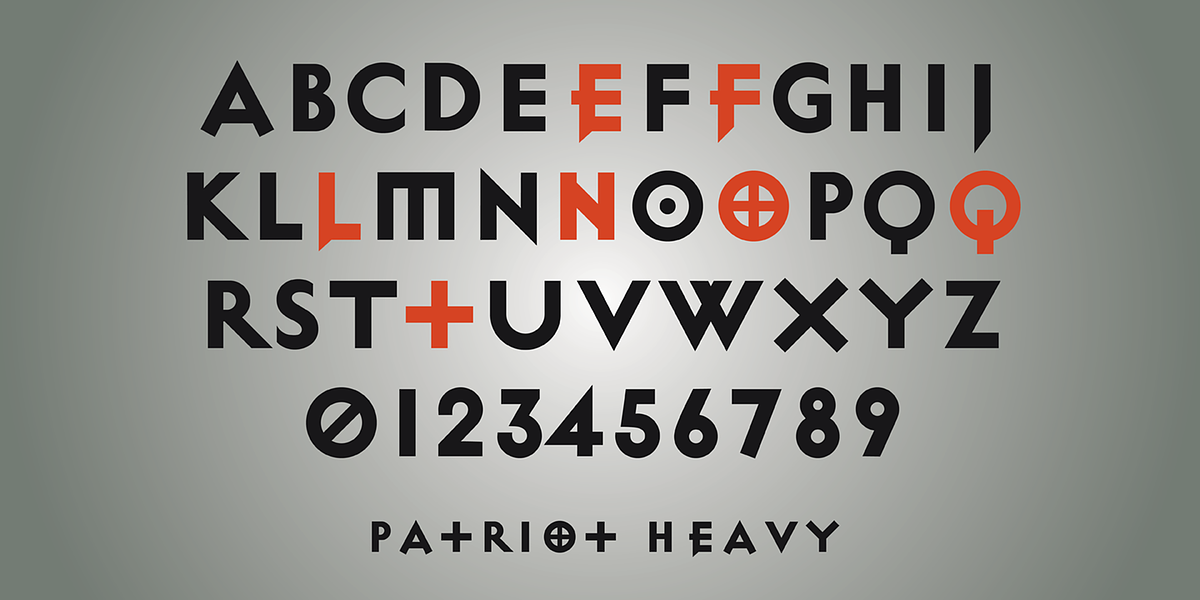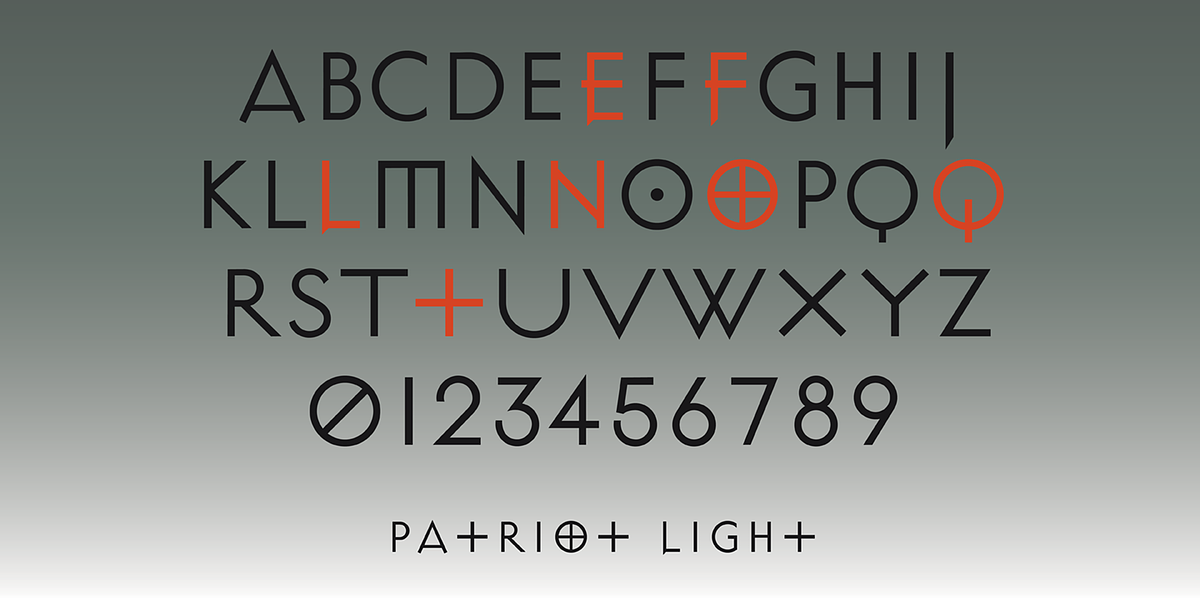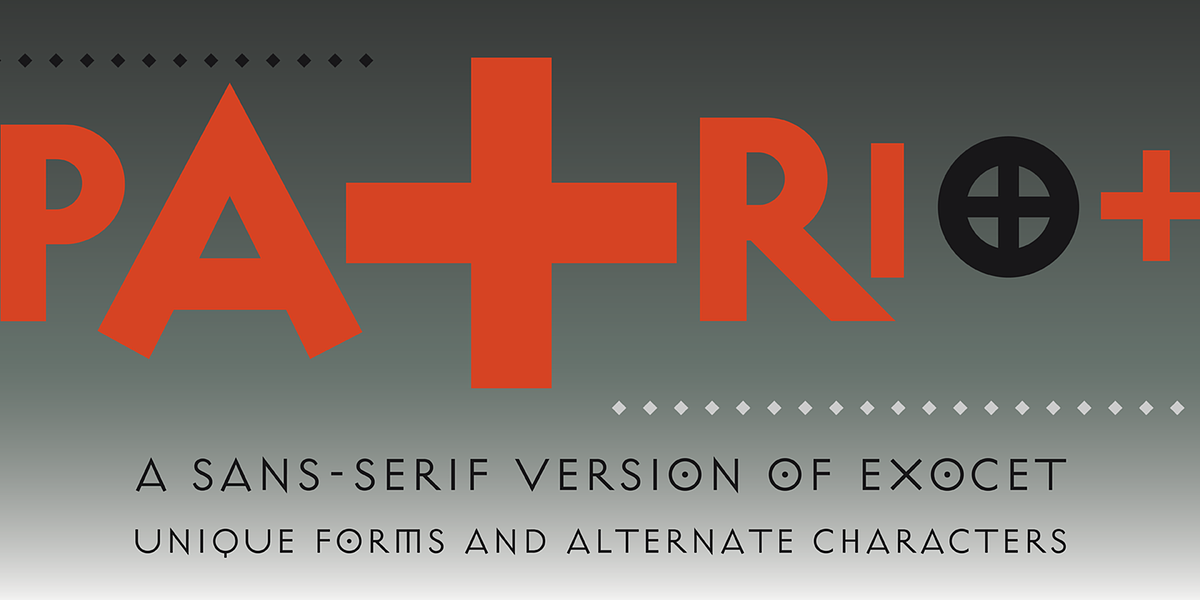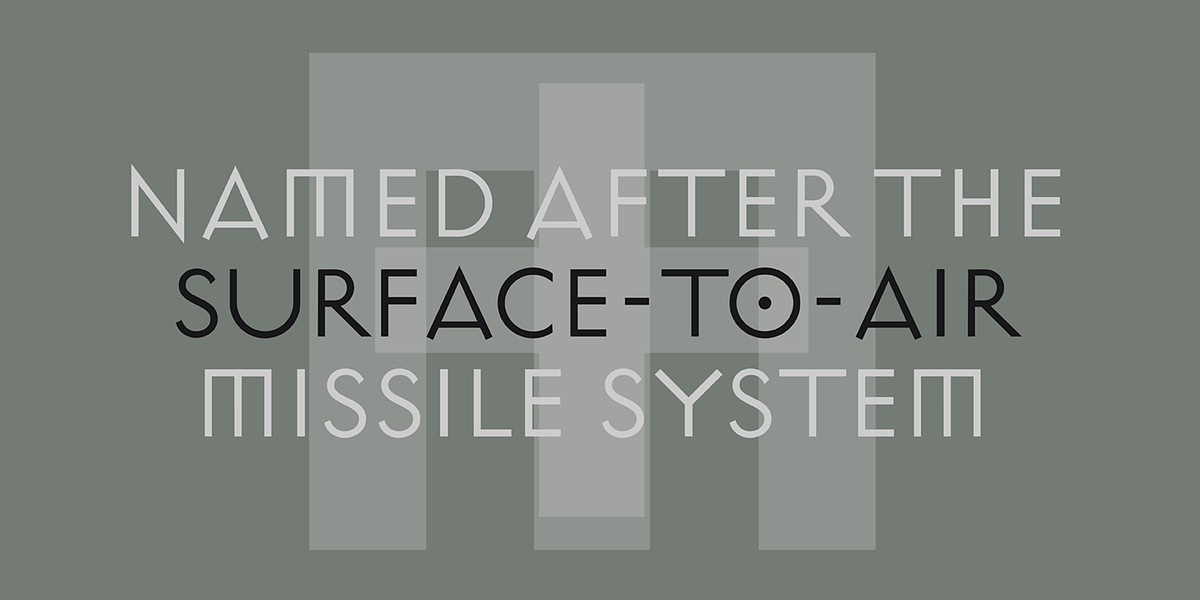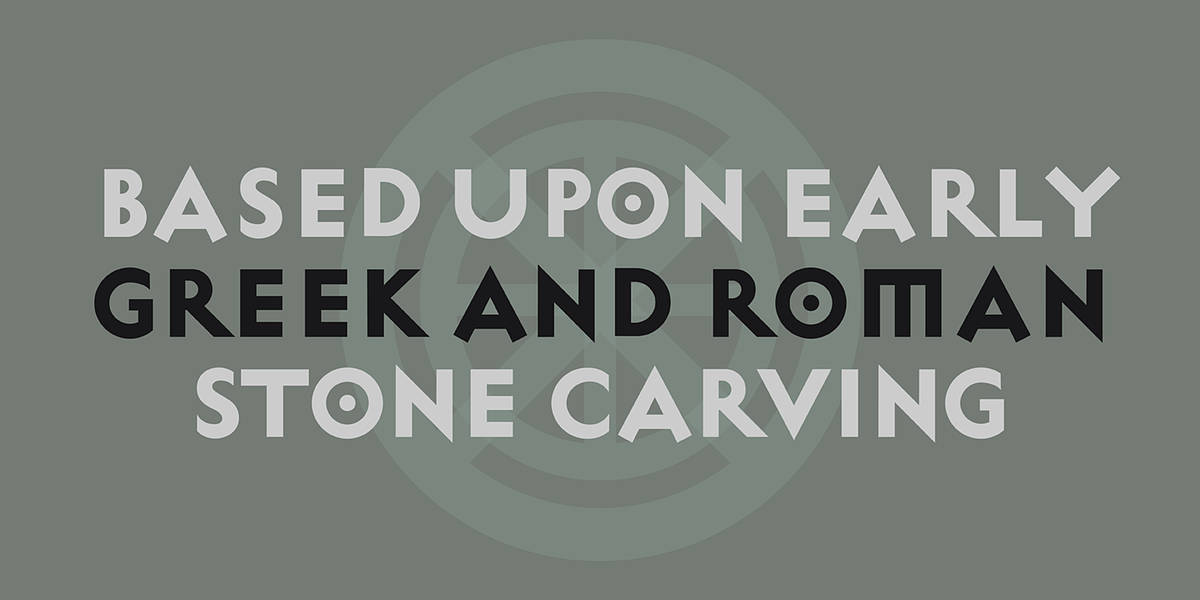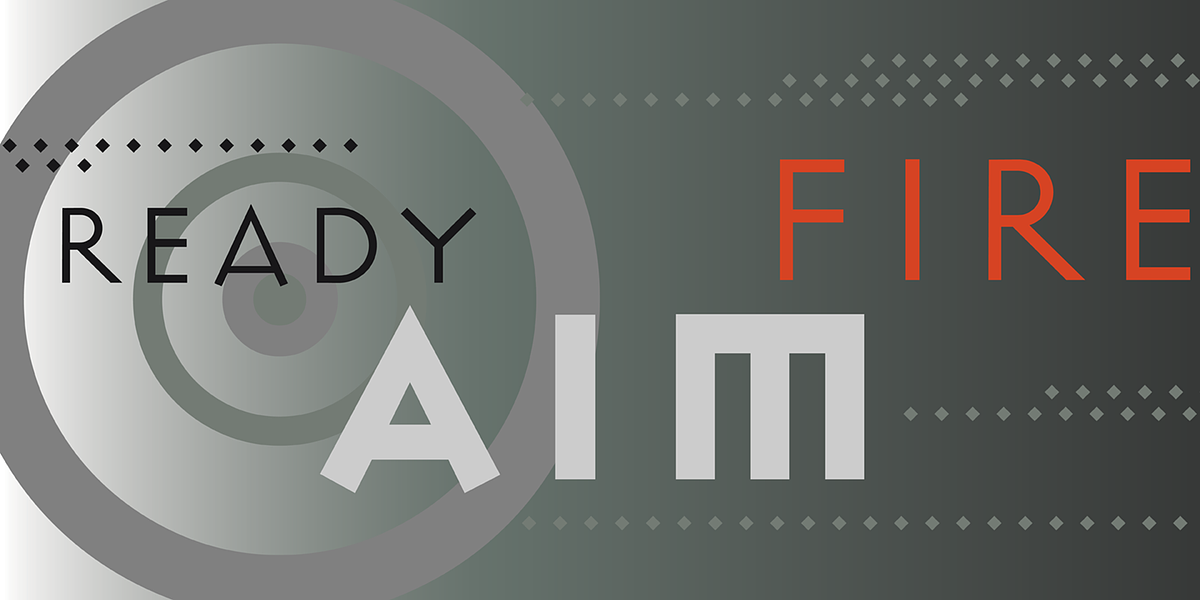
Patriot
Patriot is a geometric sans-serif typeface inspired by the forms found in early Greek and Roman stone carvings. The font features unique character designs and alternative glyphs, making it a distinctive choice for display purposes such as headlines and branding.